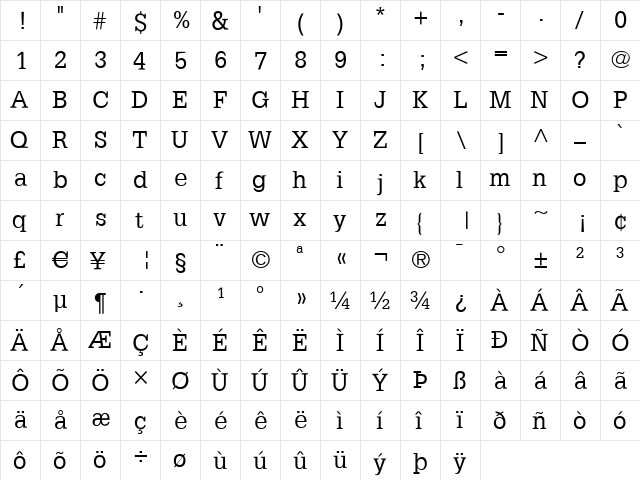
PetitLatin Regular
Design Context for PetitLatin Typeface
PetitLatin offers clean, dependable letterforms without strong stylistic allegiance, making it a practical choice for designers who need flexibility.
Pro Tip: Pair PetitLatin with a font of contrasting weight or personality to build a more expressive typographic hierarchy.